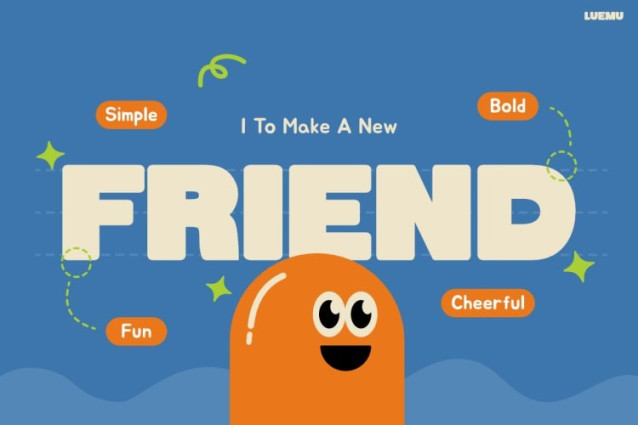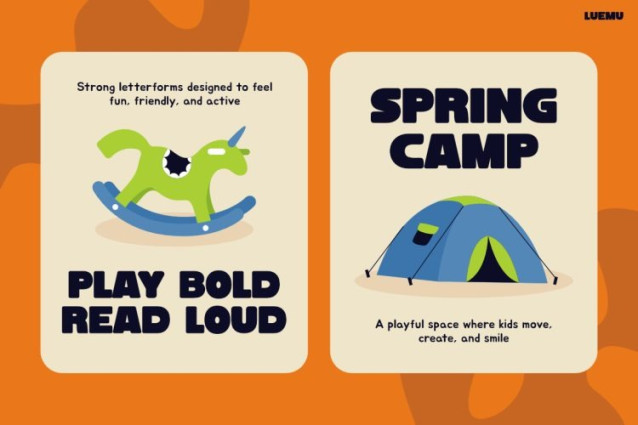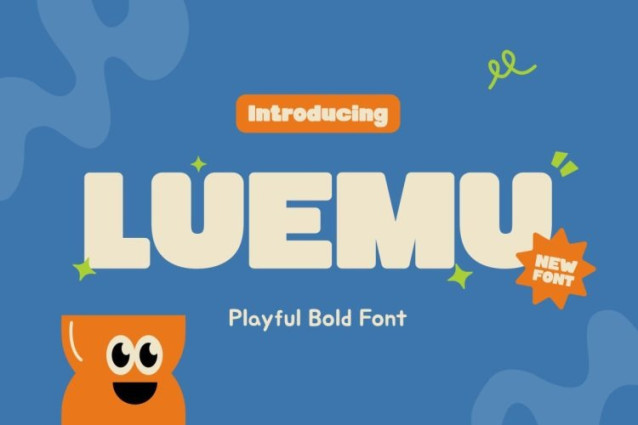
Luemu Font is a playful, bold, and friendly typeface designed to turn simple words into joyful visual stories. From the first glance, LUEMU stands out with its chunky letterforms, rounded edges, and cheerful proportions that feel warm and welcoming. Its aesthetic is inspired by children’s games, learning boards, and happy classroom moments, making every letter look approachable and fun. The font uses strong shapes and clear spacing, so text stays readable even at large sizes or from a distance. Because of this balance between cuteness and clarity, LUEMU works perfectly for both expressive headlines and functional messages. It does not just decorate words; instead, it helps messages feel friendly, positive, and full of energy. Each character feels alive, as if it invites readers to smile, play, and engage with the content.
Kids Font LUEMU is built with bold strokes and smooth curves that create a confident yet playful rhythm across every word. The letterforms feel soft but solid, which makes them ideal for designs that need to look strong without feeling aggressive. LUEMU performs very well in colorful layouts, illustrated designs, and kid-focused visuals where clarity matters. Moreover, the font adapts easily to posters, signage, worksheets, and digital screens. Its simple structure ensures that letters remain legible, even when paired with bright backgrounds or decorative elements. As a result, LUEMU supports storytelling, learning, and branding in a way that feels natural and joyful. The font brings consistency to designs while still allowing plenty of room for creativity and fun expression.
Who Is It For?
Kids Font LUEMU is ideal for designers, educators, and brands that focus on children, families, and playful experiences. It works especially well for kids’ educational materials, school projects, activity books, and learning apps. In addition, it is a strong choice for toy packaging, children’s events, summer camps, playground signage, and family-friendly branding. Content creators on social media can also use LUEMU for cheerful posts, motivational quotes, and positive messages aimed at young audiences. Furthermore, parents, teachers, and small businesses will find this font easy to use for DIY projects, invitations, and printable designs. Anyone who wants their message to feel friendly, bold, and easy to understand will benefit from LUEMU.
Why Choose LUEMU?
If you want a font that delivers happiness at first sight, Kids Font LUEMU is a smart choice. It helps your designs communicate clearly while spreading a sense of fun and optimism. With LUEMU, your words become more engaging, more memorable, and more approachable. Choose LUEMU to make your designs feel playful, confident, and full of positive energy—then let your message shine with big letters and even bigger smiles.